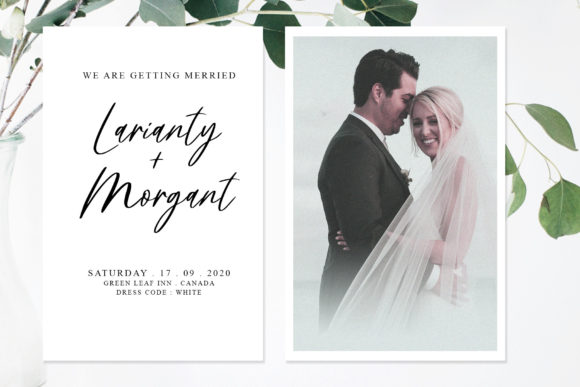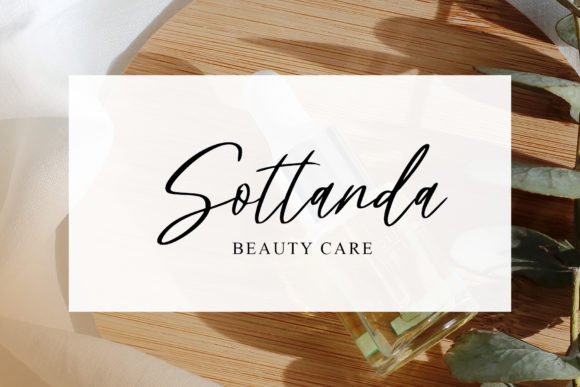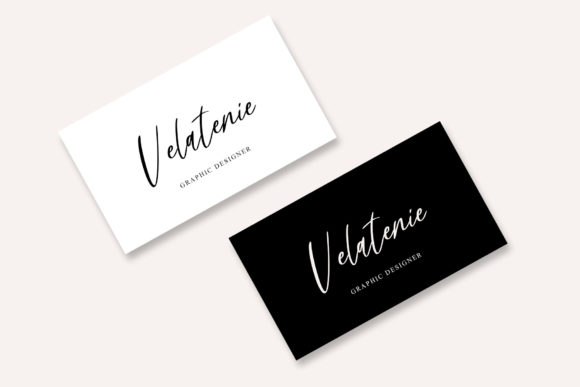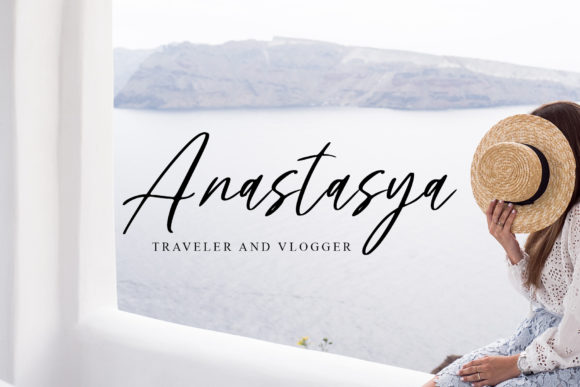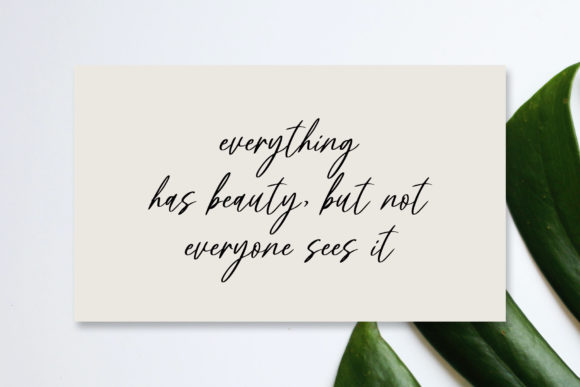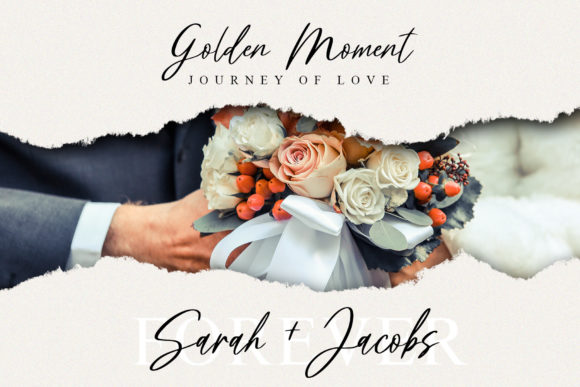
Introduction to Meritany Font
Have you ever been working on a creative project, pouring your heart and soul into it, only to realize that the perfect font is missing? For designers, finding the right font can make all the difference between a mediocre and a stunning design. That’s where the Meritany Font comes in – a delicate and elegant handwritten font that is sure to elevate your work to the next level.
With its distinct and well-balanced letters, the Meritany Font is a masterpiece that will add a touch of sophistication to any design. Whether you’re working on a logo, a poster, or a website, this font is sure to impress. And the best part? It’s available for a free download, making it an invaluable resource for designers of all levels.
Key Features of Meritany Font
- High-quality design resource for creative projects, featuring a unique and elegant script style.
- Perfect for use in logo design, typography, and other creative projects where a high-quality font is required.
Honest Review: Meritany Font
As a designer, I’m always on the lookout for high-quality design resources to elevate my creative projects. Recently, I had the chance to work with the Meritany Font, and I’m excited to share my honest review.
What works well: ✨ The Meritany Font is a versatile and elegant font that can be used for a wide range of design projects. Its sleek and modern design makes it perfect for creating professional-looking documents, presentations, and even digital products. I also appreciate the fact that it comes with a transparent background, making it easy to use as a design element in my creative projects.
What’s not so great: ⚠️ While the Meritany Font is a high-quality font, I found that it’s not included in many font collections, so you may need to download it separately. Additionally, the font may not be suitable for all types of designs, especially those that require a more playful or informal tone.
Overall impression: I’m really impressed with the Meritany Font and would highly recommend it to designers looking for a high-quality, versatile font for their creative projects. With its free download and transparent background, it’s a great design resource to have in your arsenal.
- High-quality font with a modern design
- Transparent background makes it easy to use as a design element
- May not be suitable for all types of designs
How to Use Meritany Font
The Meritany Font is a high-quality design resource perfect for any creative project. With its unique and elegant style, it can add a touch of sophistication to your designs.
The Meritany Font is perfect for a variety of design projects, including:
- Brochures
Alternatives to Meritany Font
The Great Vibes Font is a beautiful, handwritten font perfect for creative projects that require a high-quality, elegant look. It features a transparent background, making it ideal for overlaying on images or backgrounds. Great Vibes is available for free download and is a great design resource for designers looking for a unique font.
Compared to Meritany Font, Great Vibes has a more casual and laid-back feel, making it suitable for projects that require a relaxed tone. While Meritany Font is more suitable for formal or corporate projects, Great Vibes is ideal for creative and artistic endeavors.
The Alex Brush Font is a elegant and sophisticated script font perfect for designers looking for a high-quality, professional look. It features a transparent background and is available for free download, making it a great design resource for designers on a budget.